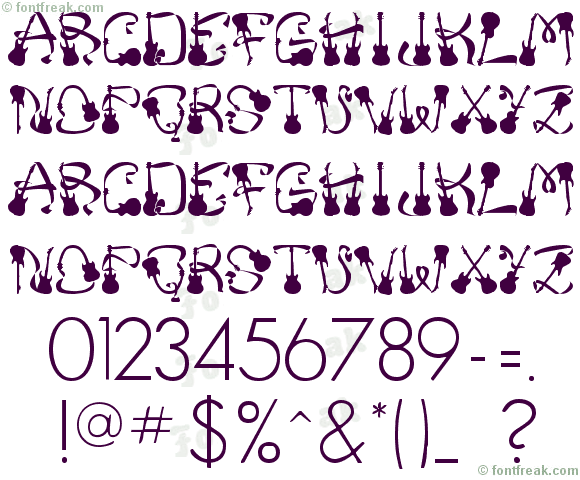
Frank Zappa
About Frank Zappa
The Frank Zappa font, created by Fish Dicks Original Fonts, is a striking display typeface that captures the essence of artistic expression. This decorative font features an eclectic and playful design, characterized by its unique stroke weight and whimsical flourishes. The overall appearance combines bold, curvy elements with sharp edges, resulting in a visually engaging type that stands out in any context. The spacing is thoughtfully designed, allowing each letter to breathe while maintaining a cohesive look that is both eye-catching and legible.
This font is particularly well-suited for creative projects that require a touch of personality. It shines in applications such as concert posters, where its lively style can draw attention and convey excitement. Additionally, the Frank Zappa font is an excellent choice for album covers, reflecting the vibrant energy of music and art. Small business owners might find it useful for branding materials, especially in fields like entertainment, food, and arts, where a bold statement is essential. Content creators will appreciate its distinctive flair for use in social media graphics, helping to create memorable and shareable content.
Targeting graphic designers, artists, and small business owners alike, the Frank Zappa font offers a fresh alternative to conventional typefaces. Its unique character and artistic flair can enhance visual storytelling, making it a valuable resource for anyone looking to infuse creativity into their work.